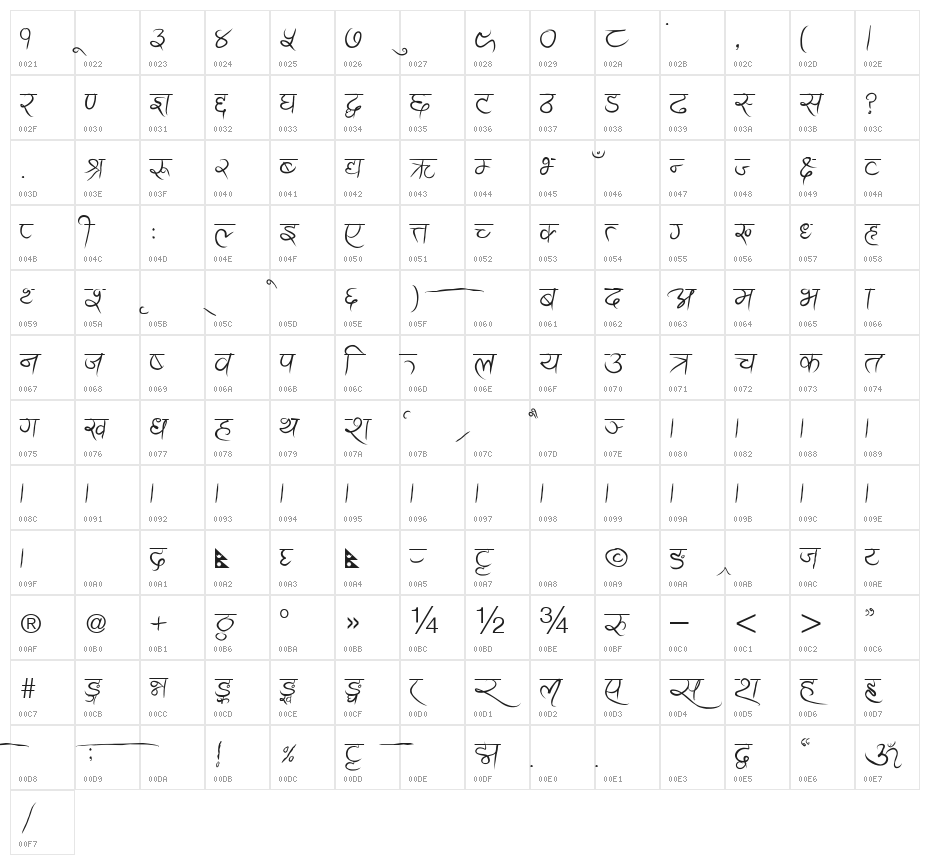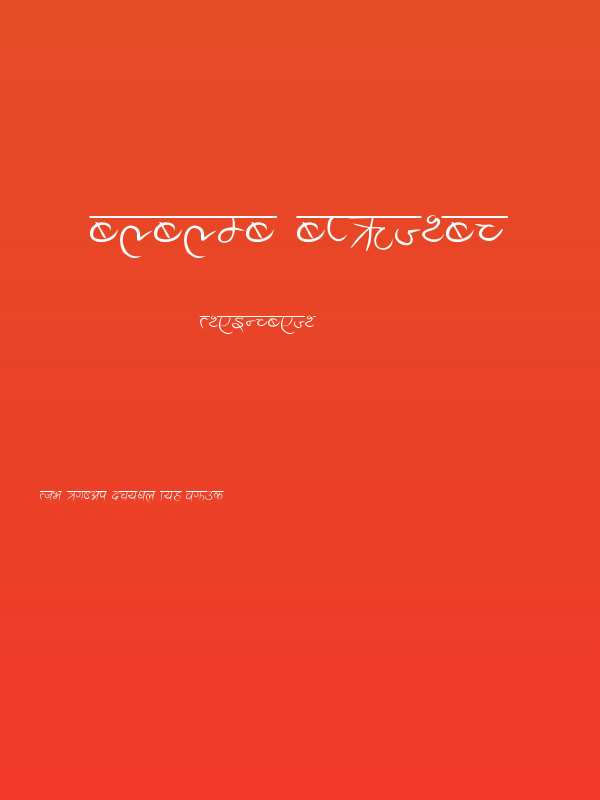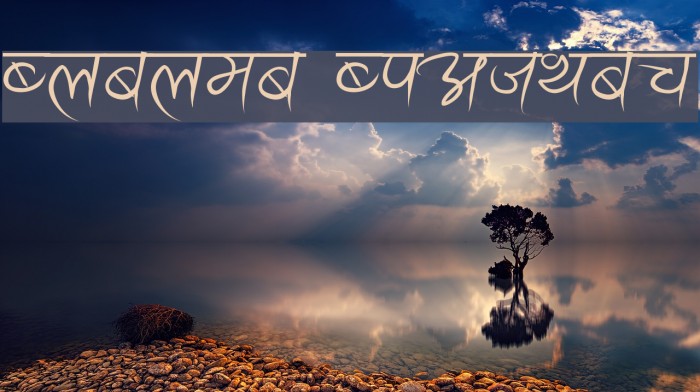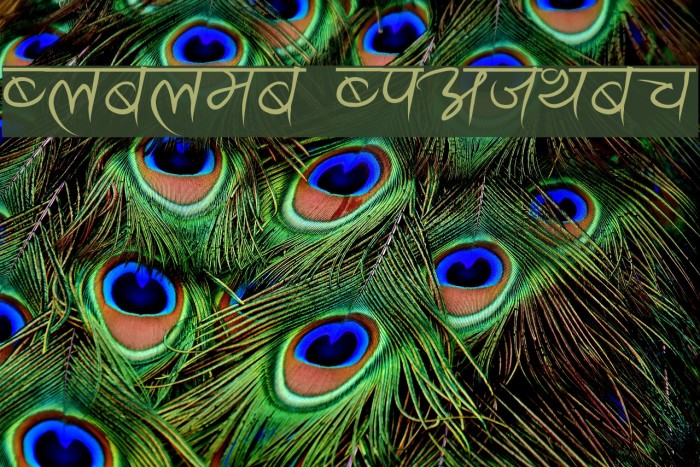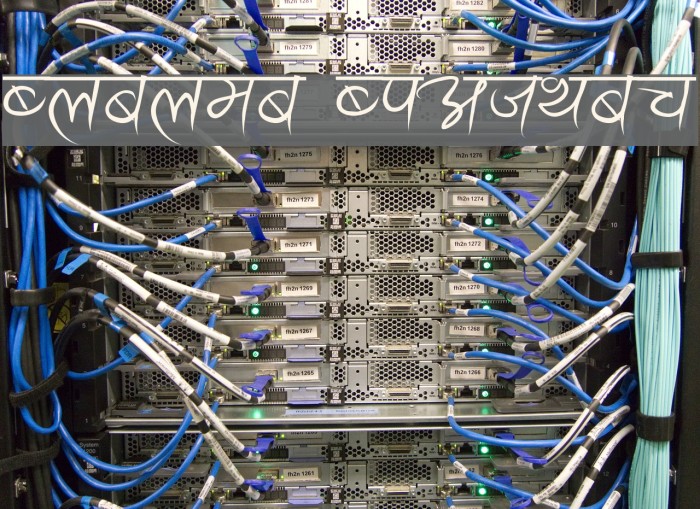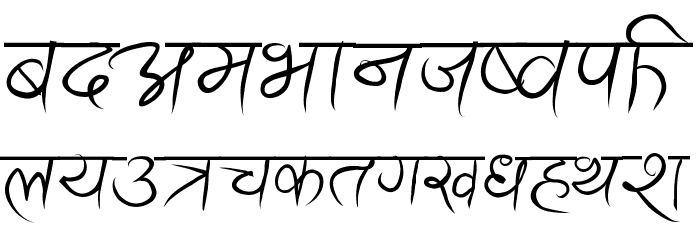
Ananda Akchyar Font
Ananda Akchyar Description
This font features a traditional and elegant script style, reminiscent of classical Indian calligraphy. The characters are intricately designed with flowing curves and sharp angles, giving them a dynamic and artistic appearance. The strokes vary in thickness, adding a sense of movement and grace to the text. The font maintains a consistent baseline with a slight slant, enhancing its handwritten feel. It is well-suited for cultural and artistic projects that require a touch of sophistication and heritage.
| Use Case | Decorative headings, cultural projects, artistic designs. |
| Proposed Projects | Ideal for cultural publications, artistic projects, invitations, and decorative headings. |